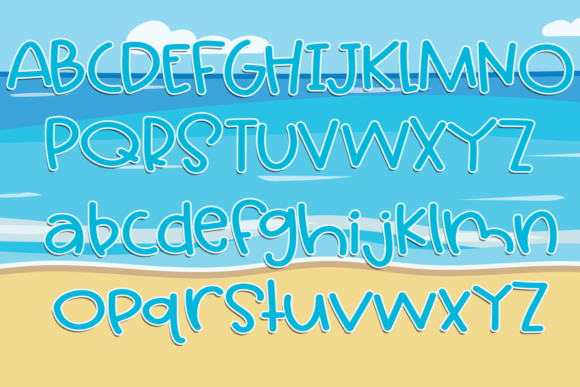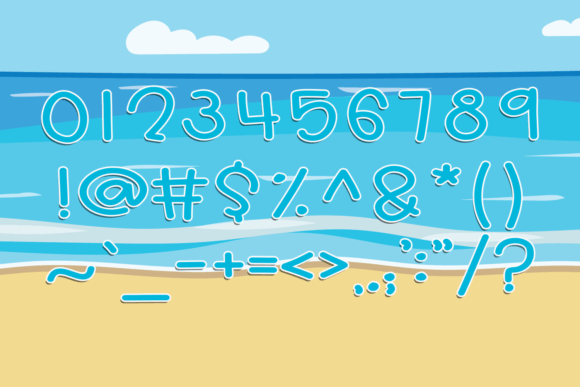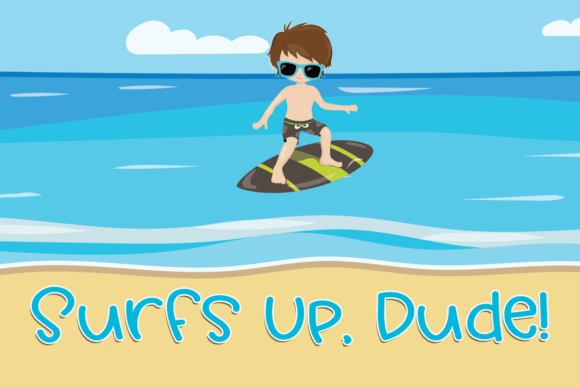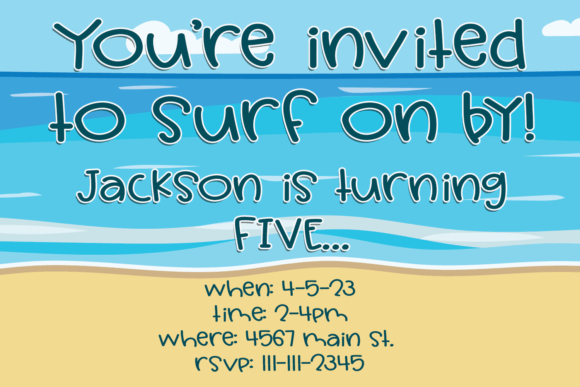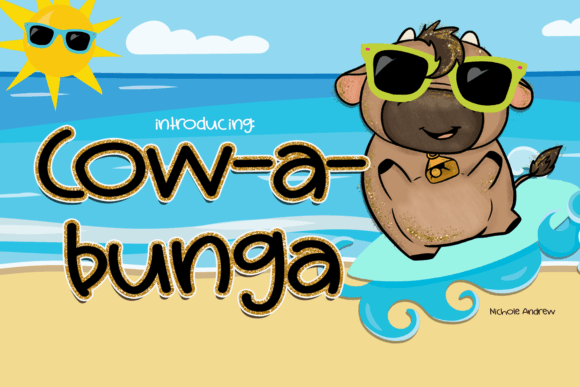
Introducing Cowabunga: The Ultimate Kid Font for Your Creative Projects
Are you tired of using the same old fonts for your creative projects? Do you want to add a playful touch to your designs and make them stand out? Look no further than Cowabunga, the ultimate kid font that’s perfect for Cricut cut machines and other creative endeavors. In this article, we’ll explore the unique features of Cowabunga and how it can elevate your designs to the next level.
What is Cowabunga Font?
Cowabunga is a handwritten font that’s specifically designed to bring a whimsical and childlike flair to your projects. With its playful and energetic vibe, Cowabunga is perfect for designers and crafters who want to create fun and engaging designs for kids’ parties, birthday invitations, scrapbooks, and more.
Key Features of Cowabunga Font
• Handwritten style: Cowabunga features a unique handwritten style that’s both playful and charming.
• Perfect for Cricut cut machines: Cowabunga is optimized for use with Cricut cut machines, making it easy to cut out letters and shapes for your projects.
• Whimsical and childlike: Cowabunga’s playful design is perfect for kids’ parties, birthday invitations, and other projects that require a fun and energetic vibe.
Why Choose Cowabunga Font?
So why choose Cowabunga font for your creative projects? Here are just a few reasons why Cowabunga stands out from the crowd:
• Unique design: Cowabunga’s handwritten style is unlike any other font on the market, making it a great choice for designers and crafters who want to create unique and eye-catching designs.
• Versatile: Cowabunga can be used for a wide range of projects, from birthday invitations and party decorations to scrapbooks and other craft projects.
Project Ideas Using Cowabunga Font
Cowabunga font is perfect for a wide range of creative projects, including:
• Birthday invitations: Create custom birthday invitations that stand out with Cowabunga’s playful design.
• Party decorations: Use Cowabunga to create custom party decorations, such as banners, garlands, and signs.
• Scrapbooks: Add a playful touch to your scrapbooks with Cowabunga’s whimsical design.
• Cricut projects: Use Cowabunga with your Cricut cut machine to create custom vinyl decals, iron-on designs, and more.